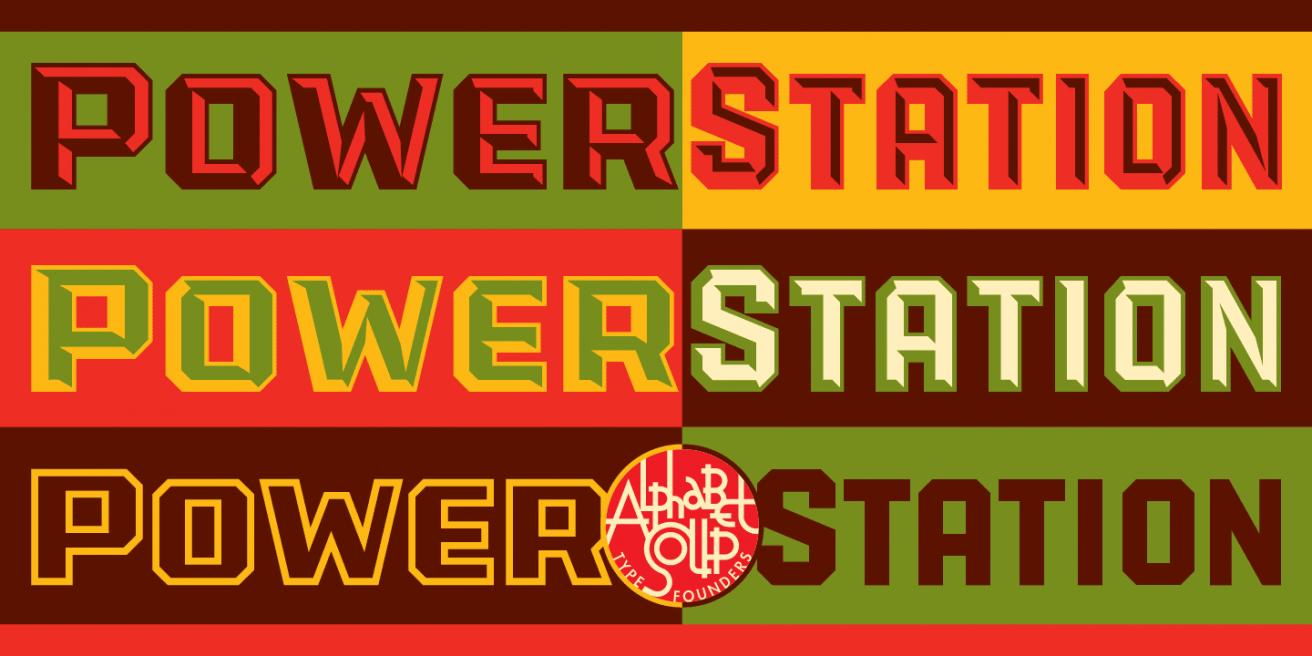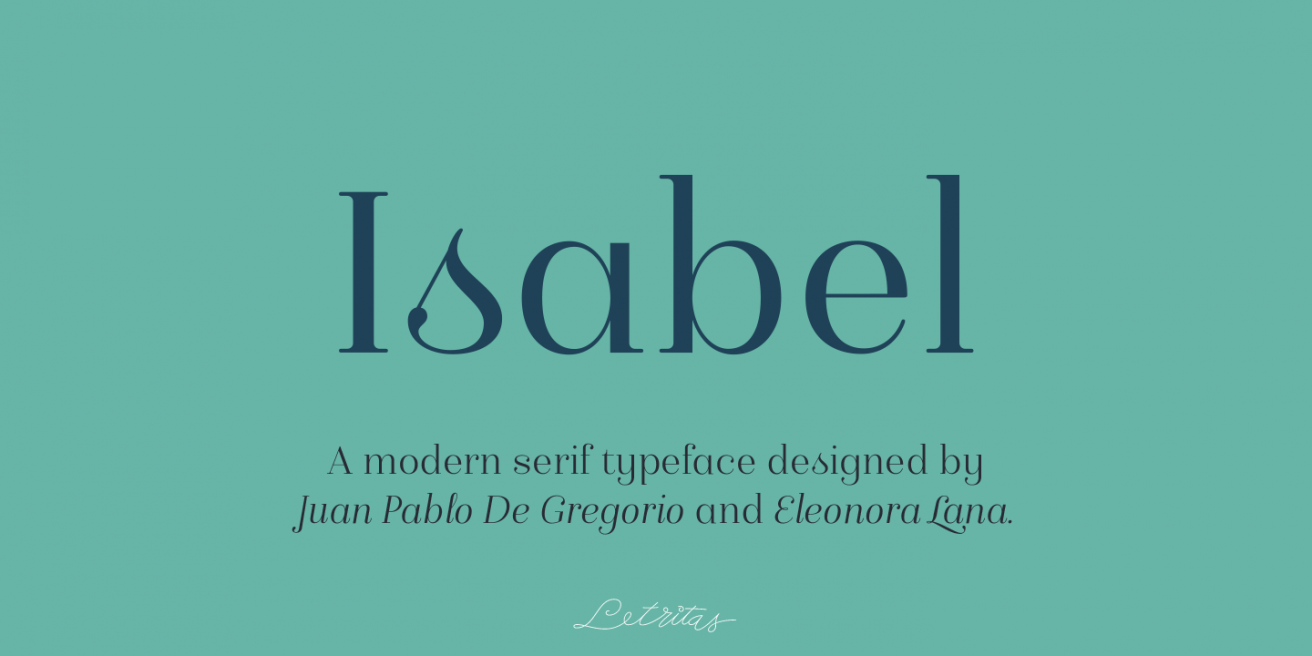
The September 2016 issue of Font Faves features four new vendors to Fontspring: Typejockeys, GT&Canary, Alphabet Soup, and Letritas.
Fontspring: Font Faves Newsletter | September 2016
This issue of Fontspring’s Font Faves features four font designers new to Fontspring. TypeJockeys, GT&CANARY, Alphabet Soup, and Letritas have all been designing fonts for years, but have just now made their way to our site. From beautiful modern serifs, to fun retro scripts, to understated geometrics sans, these foundries have proven that they can design quality fonts for nearly any project. We’re happy and excited to welcome them to Fontspring!
TypeJockeys
TypeJockeys Sample Text
TypeJockeys
Hailing from Vienna, Austria, Typejockeys take their expertise in printing and bring it to the world of fonts. With a mix of sweet display fonts like Carabella and Sauber Script, as well as more traditional serif fonts like Ingeborg or Henriette, Typejockeys is a fun new addition to Fontspring.
GT&CANARY
GT&CANARY Sample Text
GT&CANARY
Meanwhile, in the world of text and corporate fonts, GT&CANARY joins Fontspring with some fresh new sans fonts like Kana Sans and Mirai. GT&CANARY’s history of brand design is evident in these clean and versatile new typefaces.
Alphabet Soup
Alphabet Soup Sample Text
Alphabet Soup
Michael Doret of Alphabet Soup Type Founders has a very unique style all his own. Harkening back to retro posters and a vintage Americana-esque theme, his bright and bold display fonts make for eye-catching posters. Our favorites are PowerStation and Dynascript, but he has a wide range of styles to fit many design needs.
Isabel Poster
Isabel Poster1 Isabel Poster2
Isabel Sample Text
Sometimes all you need is one good font to impress people, and Isabel is a beautiful first start for Letritas. An elegant serif font with many font weights and additional characters, we're all very excited to see what they come up with next!
Isabel
Letritas